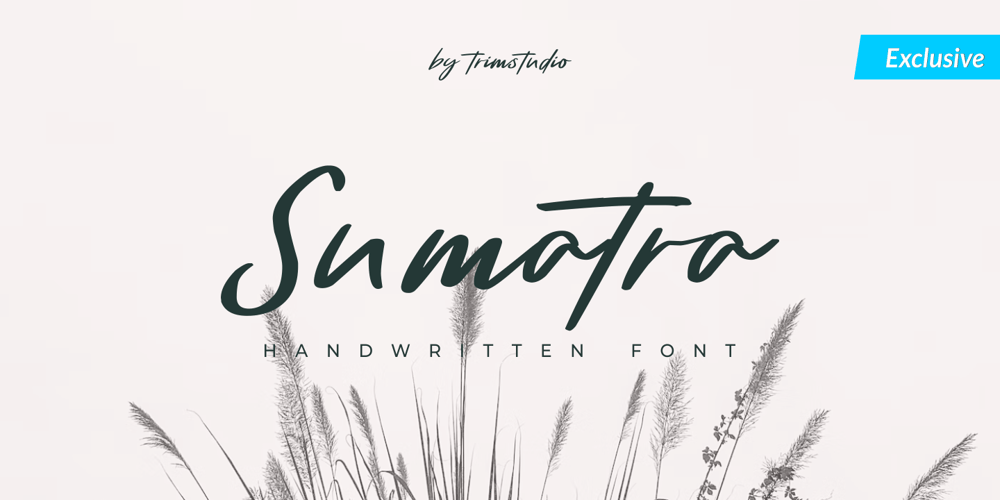
Sumatra Font Family was designed by Deri Kurnia and published by Trim Studio. Sumatra contains 1 styles and family package options. Introducing **Sumatra Font** – **The Beauty Handwritten Script****Sumatra** is create using digital pen art, we also try a couple of letter to mix and match it, we try to make it flow as smooth as possible and express the rapid handwriting typewe can use this for for branding name, signature, wedding designs, social media post, advertisements, and more projects that express beauties and luxurious—